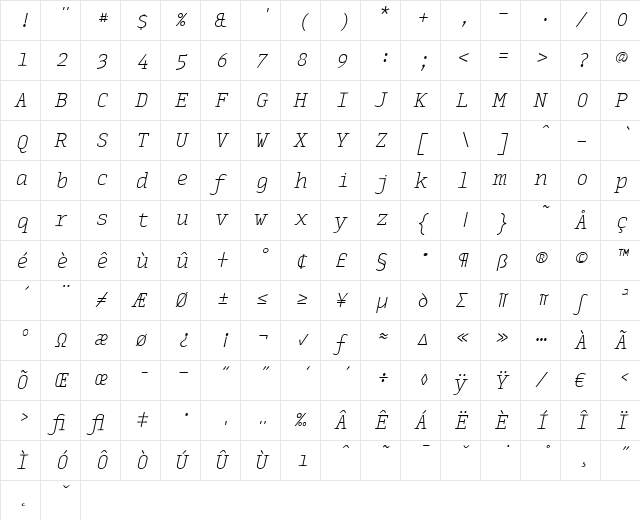
MonoxSerifExtraLightItalic Regular Font Preview
Design Context for MonoxSerifExtraLightItalic Typeface
MonoxSerifExtraLightItalic brings the precise, column-aligned rhythm of monospaced typography to designs that value technical clarity and systematic order. The dynamic lean of this cut emphasises speed and emphasis in any layout. Its slender proportions lend an understated elegance to any composition.
Pro Tip: Use MonoxSerifExtraLightItalic with slightly increased line-height for extended reading — fixed-width spacing can feel dense in longer passages without extra breathing room.